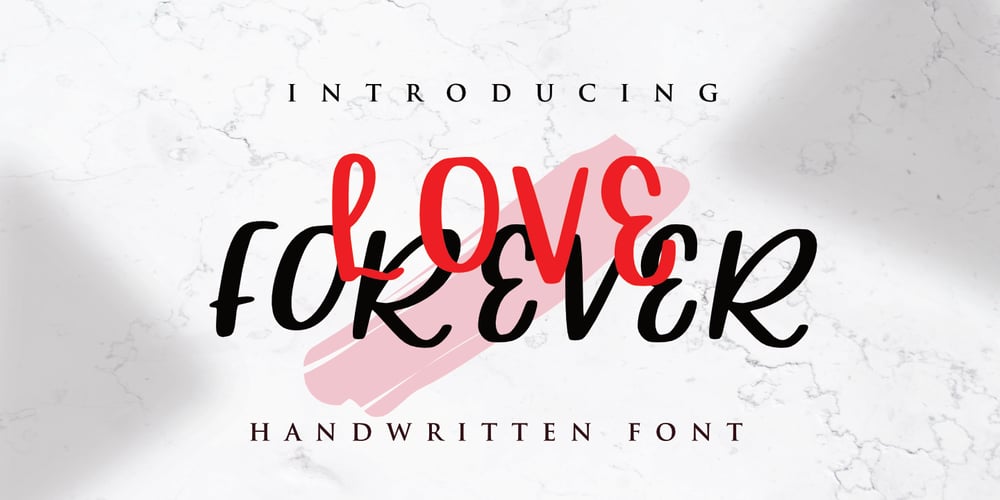
Love Forever
Love Forever font
Love Forever Font Family was designed by Mariyana and published by Goodigital13. Love Forever contains 1 styles and family package options. Perfectly suited to signature, stationery, logo, typography quotes, magazine or book cover, website header, clothing, branding, packaging design and more. it’s perfect for logos, name card, magazine layouts, invitations, headers, or even large-scale artwork.